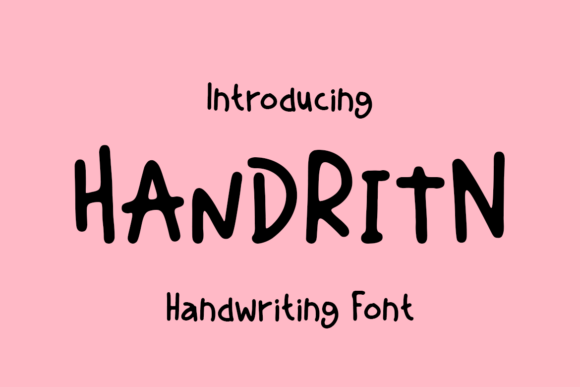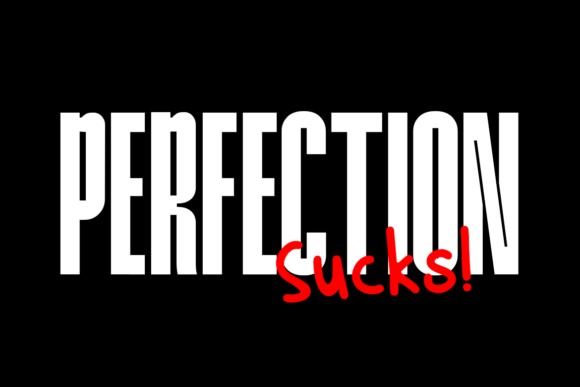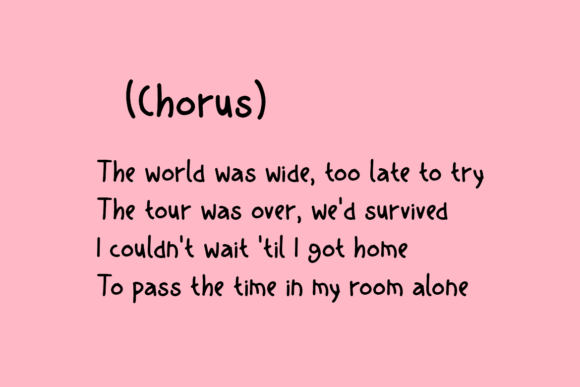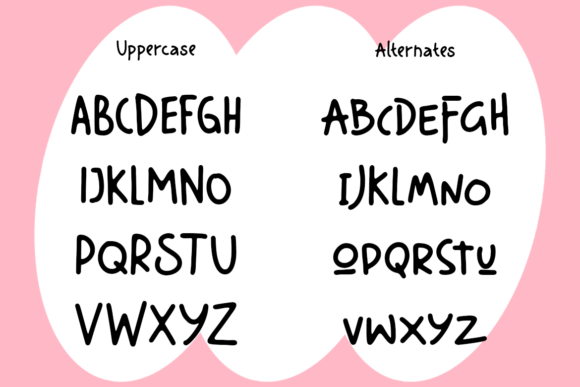
Handritn Font Font
About the Handritn Font Font
Get ready to be inspired by Handritn Font Font, a fresh and dynamic typeface for modern creators. Handritn is a handwritten font that stands out for its unique character and expressive quality. With its lowercase and uppercase letterforms, as well as full uppercase alternates, this font offers a diverse set of creative options, enabling designers to infuse their designs with a personalized and human touch.
Handritn excels in headline applications, short textual snippets on branding materials, and impactful quotes within posters or packaging designs. Its expressive nature makes it ideal for projects needing a personal touch, such as invitations or handcrafted product labels. However, its handwritten style is less suitable for extended body text or UI elements where legibility is paramount. The irregular letterforms would hinder readability in longer passages.
The font’s core personality is friendly and approachable yet sophisticated. It conveys a sense of authenticity and handmade charm.
Pairing Handritn with a clean sans-serif like Open Sans for body text or a geometric sans-serif like Futura for a more modern contrast would create a balanced design. For a more traditional feel, consider a complementary serif typeface such as Garamond.
Handritn Font Font Usage Examples
Handritn Font Font Example